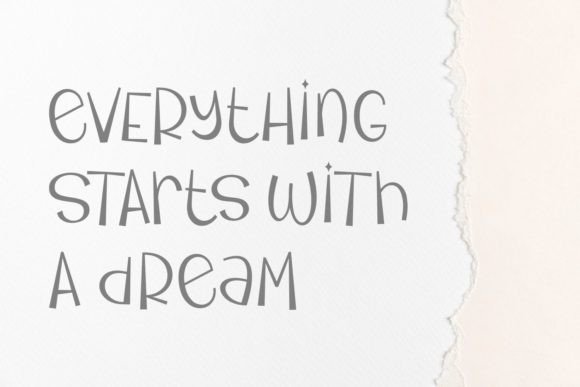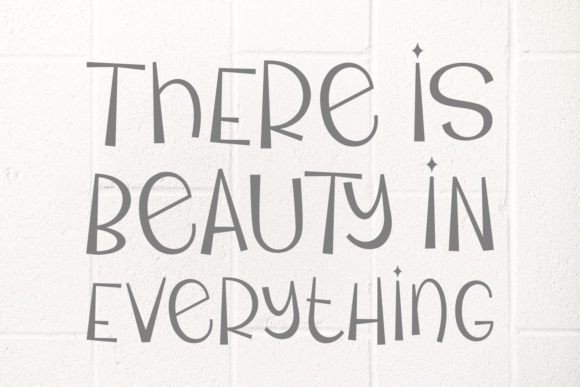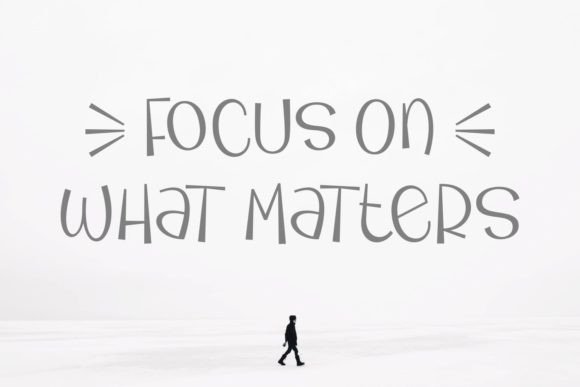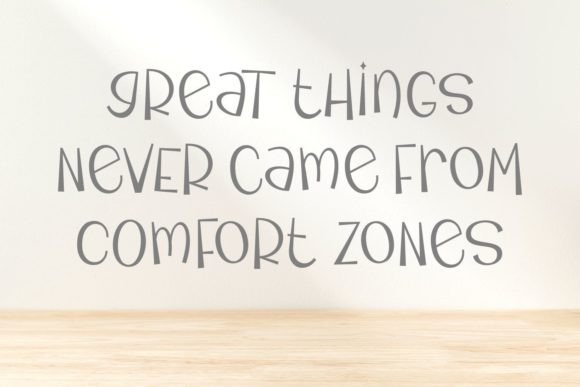
Discover the Charm of Arsa Manembah Font: Elevate Your Designs with a Simple yet Stylish Handwritten Font
In the world of typography, fonts play a crucial role in conveying the tone and personality of a design. For designers and crafters looking for a unique and stylish touch, the Arsa Manembah font is an excellent choice. This simple yet eye-catching handwritten font is designed to add a personal flair to your creations, making them stand out from the crowd.
What Makes Arsa Manembah Font Special?
Arsa Manembah is a beautifully crafted handwritten font that boasts smooth, bold lines and curved edges. This thoughtful design creates a natural, stylish look that is both elegant and approachable. The font’s simplicity makes it versatile and easy to use, allowing designers to apply it to a wide range of projects, from branding and advertising to packaging and digital media.
Key Features of Arsa Manembah Font
- Handwritten style: Arsa Manembah features a genuine handwritten look that adds a personal touch to your designs.
- Smooth lines and curved edges: The font’s smooth lines and curved edges create a natural, flowing appearance that is both stylish and sophisticated.
- Bold and eye-catching: The bold lines of Arsa Manembah make it perfect for headlines, titles, and other design elements that need to grab attention.
- Versatile: This font is suitable for a wide range of design projects, including branding, advertising, packaging, and digital media.
Why Choose Arsa Manembah Font?
For designers and crafters looking for a font that can help them create unique and personal designs, Arsa Manembah is an excellent choice. Here are just a few reasons why:
- Ease of use: Arsa Manembah is easy to read and use, making it perfect for designers of all skill levels.
- Customization: The font’s simple yet stylish design makes it easy to customize and pair with other fonts.
- Uniqueness: Arsa Manembah’s distinctive handwritten style ensures that your designs will stand out from the crowd.
- Time-saving: With Arsa Manembah, you can create professional-looking designs quickly and efficiently.
How to Use Arsa Manembah Font in Your Designs
Arsa Manembah font can be used in a variety of design projects, including:
- Branding and advertising: Use Arsa Manembah to create eye-catching logos, posters, and advertisements.
- Packaging design: Add a personal touch to your product packaging with this stylish font.
- Digital media: Use Arsa Manembah in your social media graphics, blog posts, and website designs.
- Crafting and DIY projects: Add a touch of elegance to your crafting and DIY projects, such as handmade cards and gift tags.
In conclusion, Arsa Manembah font is a simple yet stylish handwritten font that can elevate your designs to the next level. Its smooth lines, curved edges, and bold appearance make it perfect for creating unique and personal designs. Whether you’re a designer, crafter, or DIY enthusiast, Arsa Manembah is an excellent choice for adding a touch of elegance and sophistication to your projects.